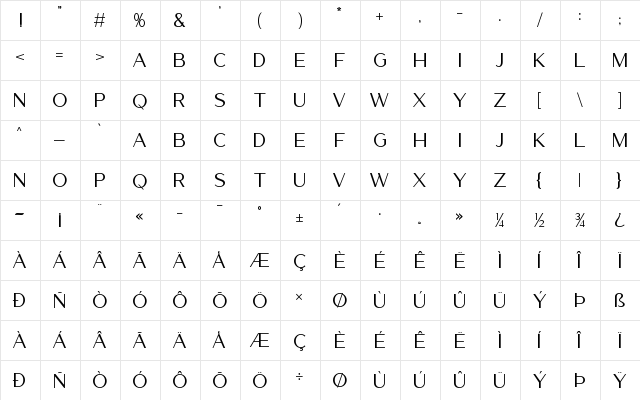
Luxerie Regular
| Designer | Malik Wisnu -MLKWSN 2019 |
Design Context for Luxerie Typeface
Luxerie offers clean, dependable letterforms without strong stylistic allegiance, making it a practical choice for designers who need flexibility.